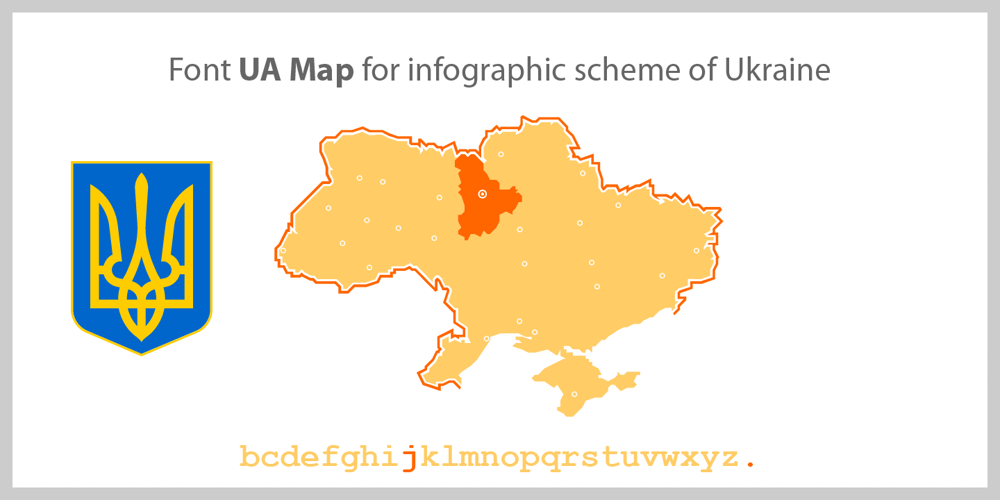
UA Map
UA Map font
UA Map Font Family was designed by Lukyan Turetskyy and published by 2D Typo. UA Map contains 1 styles and family package options. Font allows one to quickly make a schematic map of Ukraine. To separate individual regions use color or uppercase characters. The font contains the Trident emblem of Ukraine. This font may be useful to illustrate materials about Ukraine.